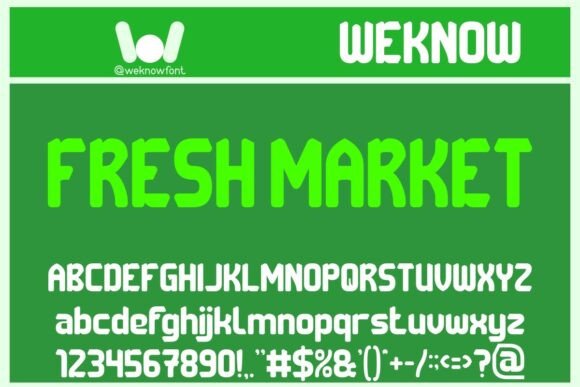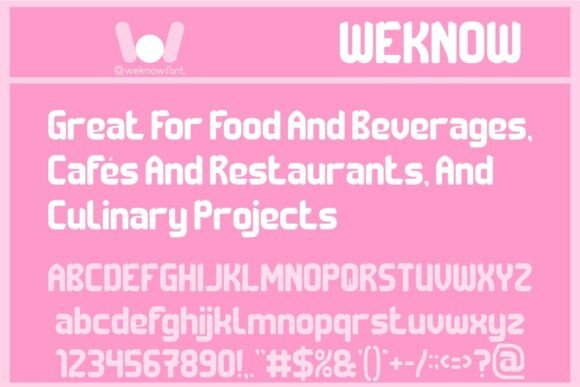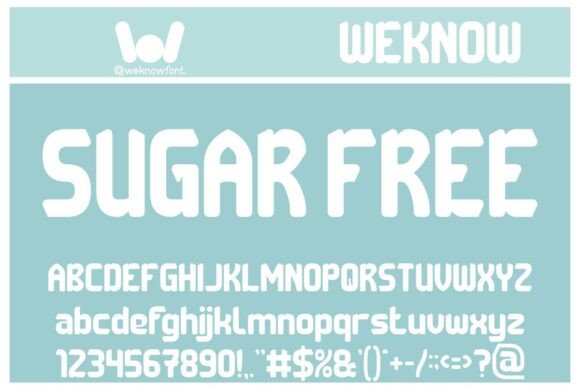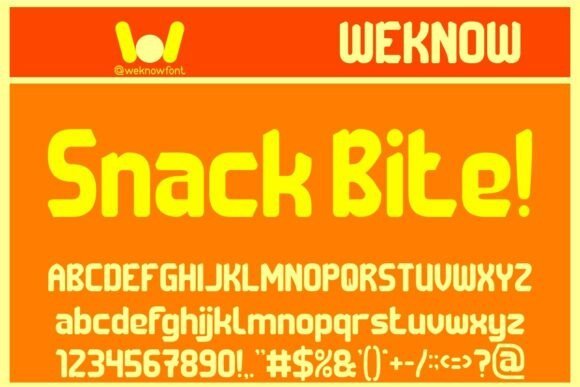
Introduction to Snack Bite Font
Introducing Snack Bite, a refreshingly playful and rounded display font bringing a vintage-futuristic appeal to the table.
Immerse yourself in the charm of its structured geometry and contemporary finesse, a quintessential choice for capturing attention Whether you’re looking to grace a magazine headline, stamp your corporate identity, or customize your brand identity, Snack Bite carries the versatility needed to enhance your project.